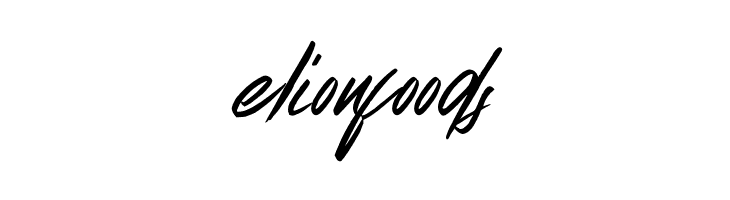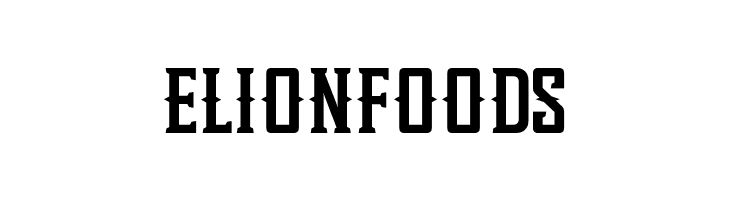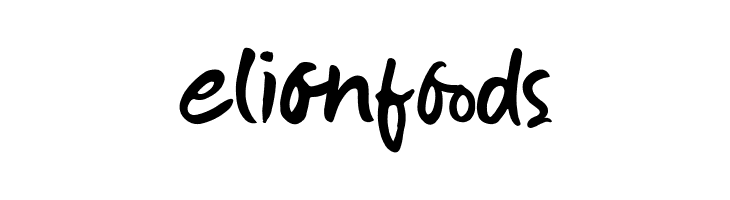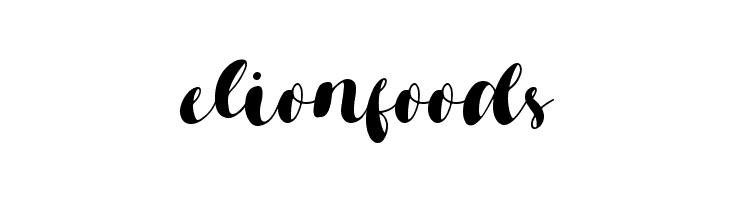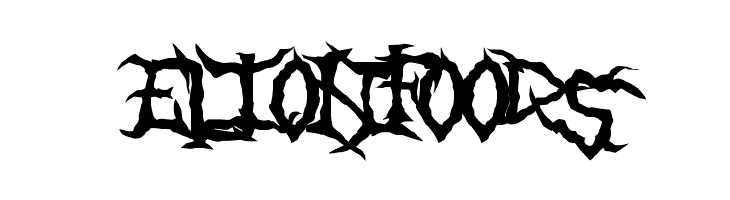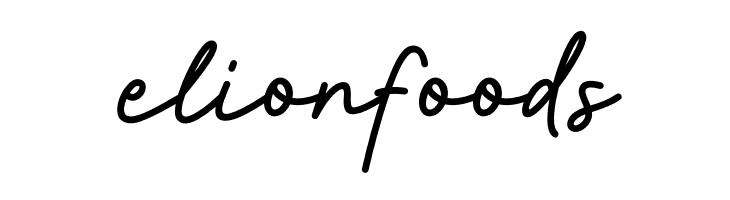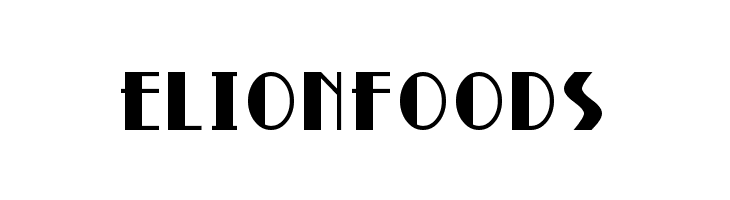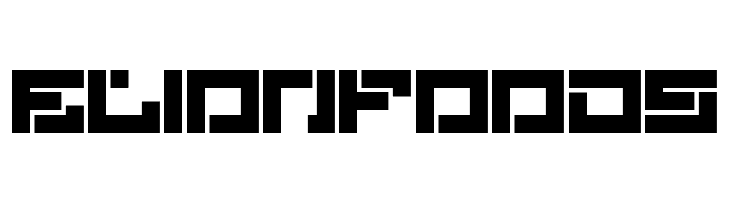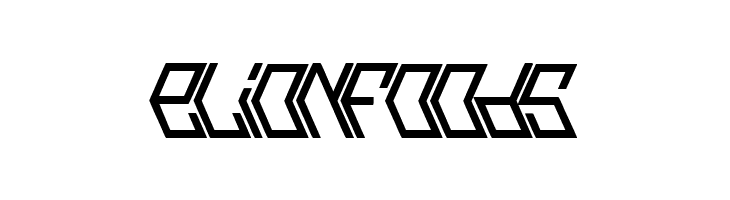
• Brittle
( Chequered Ink - chequered.ink/ )
A bold, geometric font with a futuristic and digital aesthetic.
• Brittney Signature DEMO! DEMO!
( Fonts by Jimtype Studio )
A casual and elegant handwritten font with smooth, flowing lines.
• Broadmoor
A bold, geometric font with sharp angles and modern design.
• Broken Knight
A bold, angular serif font with a gothic influence and high contrast.
• Broken n Weak Font
( Cre8or Artwork - Lukas Kohler )
• Broklight
A dynamic and energetic script font with fluid, sweeping strokes and a modern calligraphic style.
• Brontoseno
A bold, handwritten script font with dynamic and fluid strokes.
• Brownies Sugar
A bold, flowing script font with elegant curves and a handwritten style.
• Brullos
A bold, energetic, hand-drawn font with brush-like strokes and a lively appearance.
• Brutal Tooth
( Fonts by Kirk Shelton - www.kirkshelton.com )
A bold, thorn-like decorative font with a chaotic, edgy style.